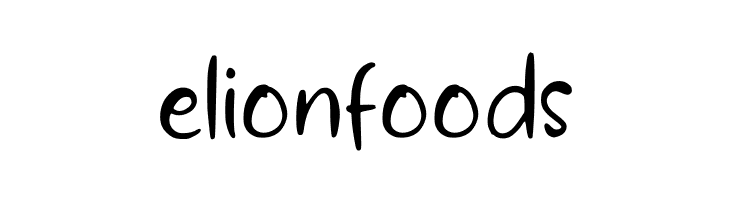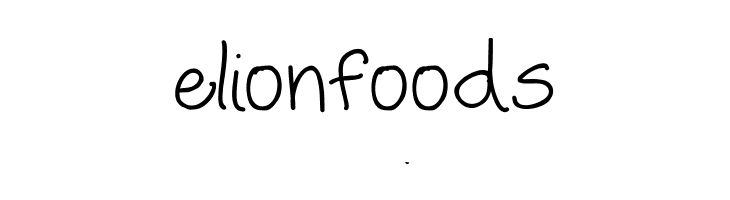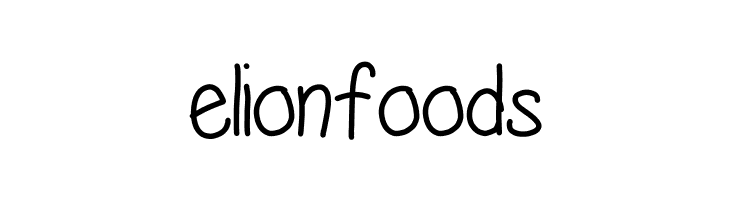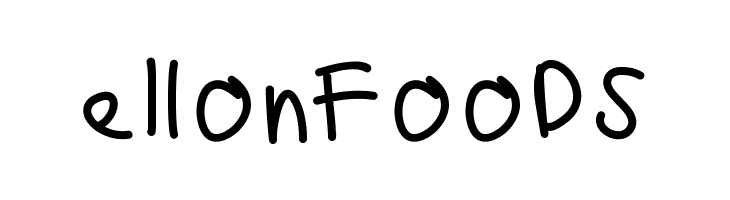
A playful, rounded font with a hand-drawn feel, perfect for casual designs.
A playful, hand-drawn font with a whimsical and informal style.
A playful, handwritten font with smooth, fluid strokes and a casual appearance.
A playful, casual handwritten font with smooth curves and a personal touch.
A playful handwritten font with smooth curves and a casual style.